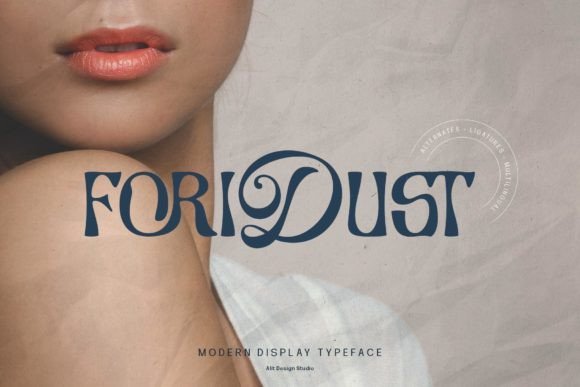
The Font That Captivates: Unleashing the Beauty of Foridust Font
There’s something magical about the moment when a design concept comes together – the perfect combination of colors, textures, and typography that elevates your work from ordinary to extraordinary. For many designers, this moment is the result of years of practice and experimentation, but for others, it’s the discovery of a game-changing font like Foridust Font.
Foridust Font is a stunning display font that brings elegance and sophistication to any project. Whether you’re working on a high-end fashion brand, a cosmetics label, or a social media campaign, this font is sure to make a lasting impression. With its PUA encoding, accessing the amazing glyphs and ligatures is a breeze, giving you the freedom to get creative and push the boundaries of design.
- Unique Characteristics: Foridust Font features a unique blend of modern and vintage elements, with intricate details and subtle textures that evoke a sense of sophistication and elegance.
Foridust Font Review
I recently had the chance to work with the Foridust Font, and I’m excited to share my honest review. ✨ One thing that really stands out is the unique aesthetic of this font. It’s perfect for adding a touch of elegance and sophistication to any design project. The bold lines and curved shapes create a beautiful contrast that grabs attention.
Another aspect I appreciate is the flexibility of Foridust Font. It’s available in various weights and styles, making it easy to adapt to different design needs. From headings to body text, this font is versatile and can be used in a wide range of applications.
While Foridust Font is a great addition to any design toolkit, there are a few limitations to consider. ⚠️ One potential issue is the font’s readability at smaller sizes. While it looks stunning at larger sizes, it can become difficult to read at smaller scales.
Another limitation is the font’s limited language support. If you need to create content in multiple languages, you may need to look elsewhere.
In conclusion, Foridust Font is a great choice for designers looking for a unique and elegant font. While it has some limitations, the benefits far outweigh the drawbacks. I’d definitely recommend this font for projects that require a touch of sophistication and style.
- Unique aesthetic and elegant design
- Available in various weights and styles
- Flexible and adaptable to different design needs
- Readability issues at smaller sizes
- Limited language support
Foridust Font is ideal for creating eye-catching headlines and titles. Use it to add a touch of elegance and sophistication to your designs. You can also use it for body text in creative projects, such as magazines, brochures, and websites.
Some popular use cases include:
- Magazine and newspaper headlines
- Website titles and tags